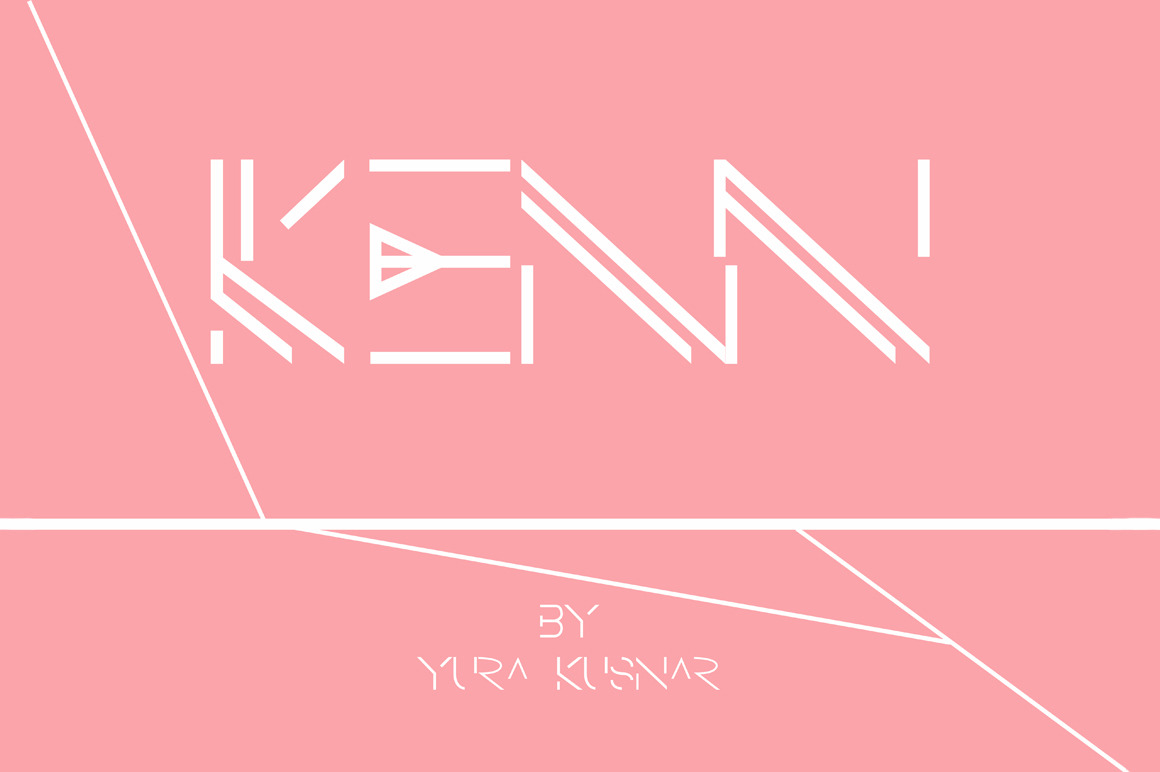
KENN Typeface
KENN is an elegant, minimalist, versatile and edgy sans serif display typeface that includes 2 styles, 3 weights and more than 300 glyphs. Perfect for design projects, print materials, web designs and even for tattoos!